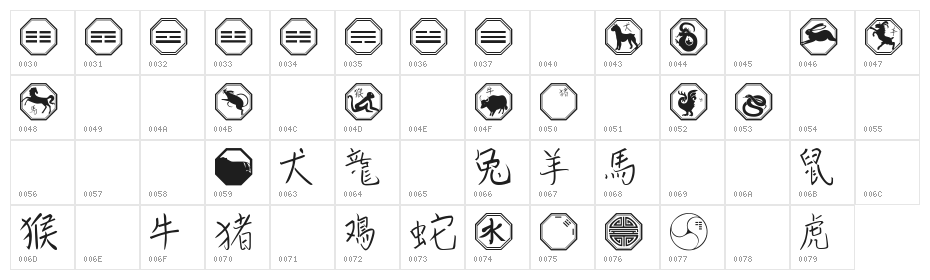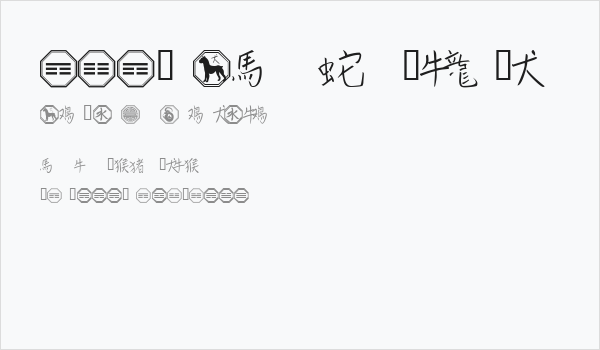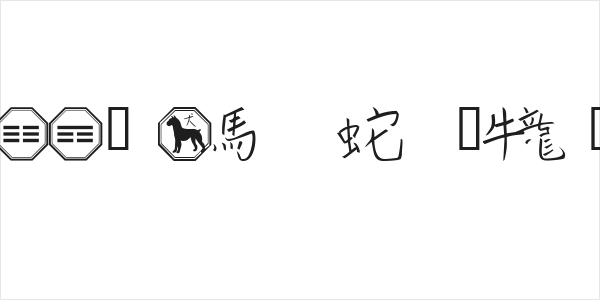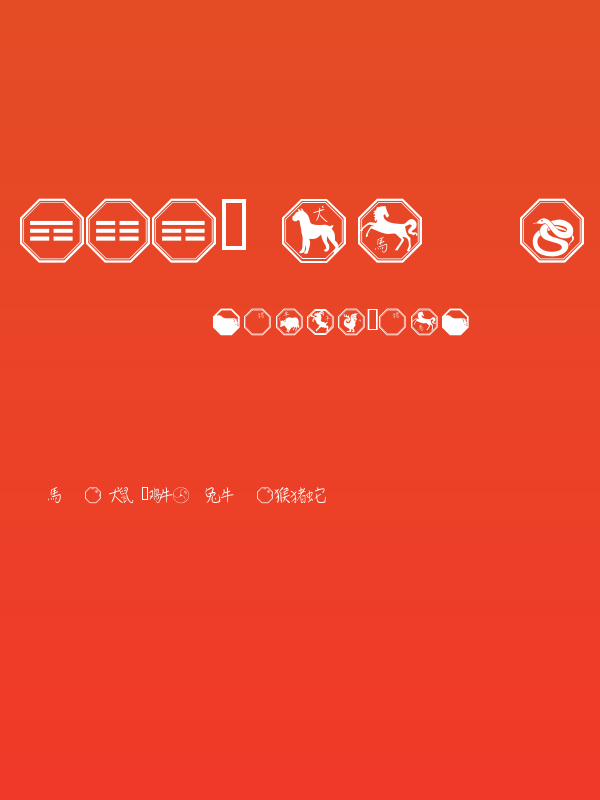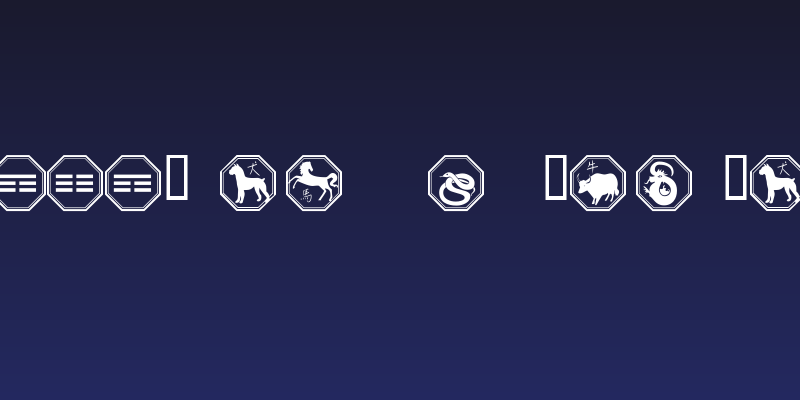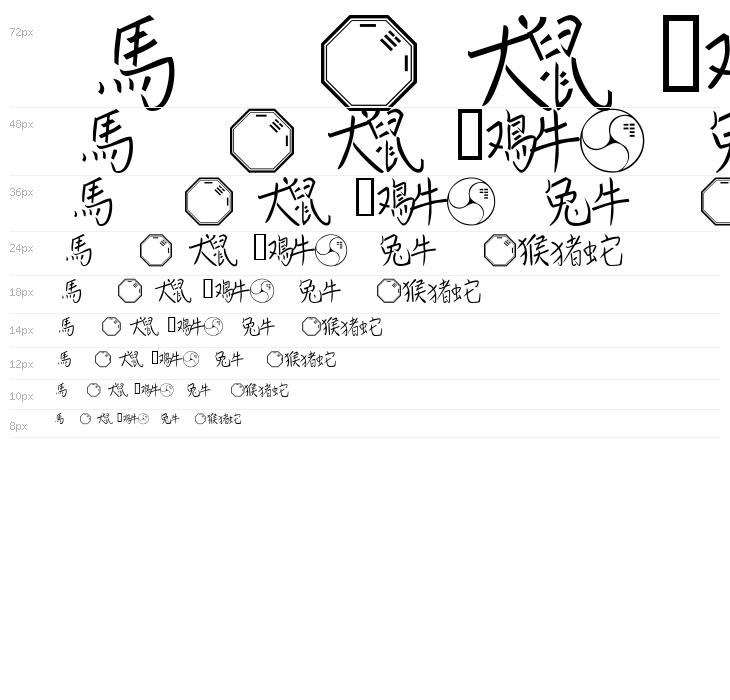
101! Chinese Zodiac Font
| Caso d'uso | Logos, Posters, Art projects |
| Progetti proposti | Ideal for cultural event posters, themed invitations, educational materials on Chinese culture, and decorative art projects. |